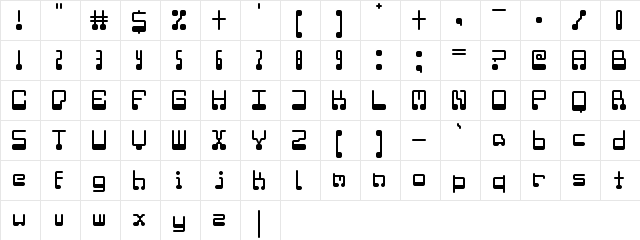
Microchip is a composed and adaptable typeface that performs quietly and consistently across a wide range of design contexts.
Pro Tip: Use Microchip in both headline and body roles to test its range before committing to a single application.